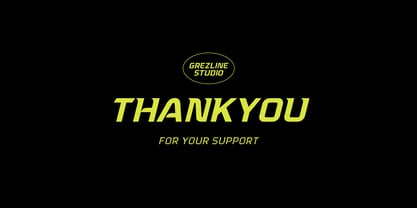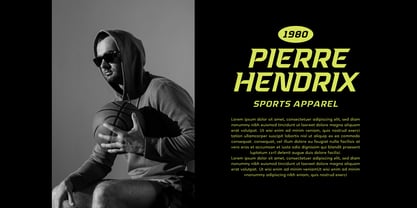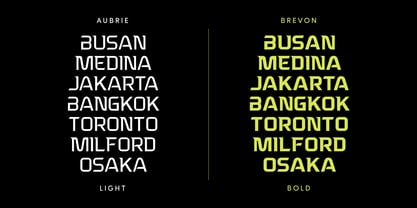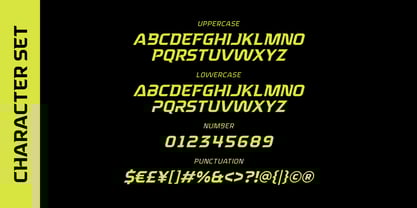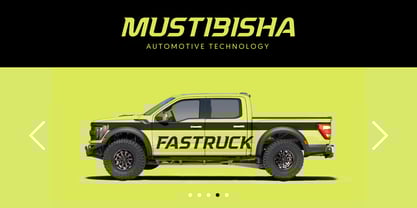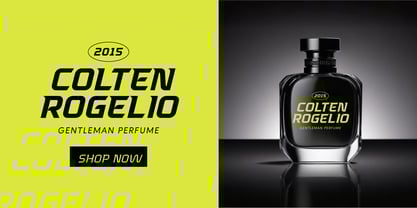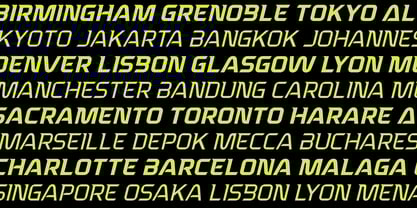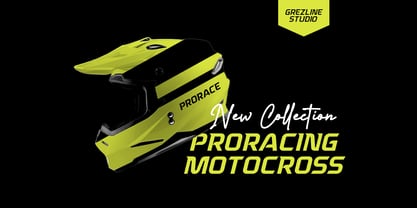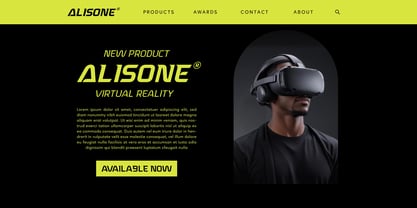
Aubrie Brevon
La famille de polices Aubrie Brevon a été conçue par Akhmad Reza Fauzi et publiée par Grezline Studio. Aubrie Brevon contient 6 styles et options de package familial.
Aubrie Brevon is a display sport font family that consist of six fonts.
Aubrie Brevon font is ideal for logos, headlines, sports branding, race car graphics, athletic apparel, event posters, dynamic digital content and other creative projects that demand strong personality.
Its futuristic and modern look making it the ideal choice for projects that need to inspire and motivate.